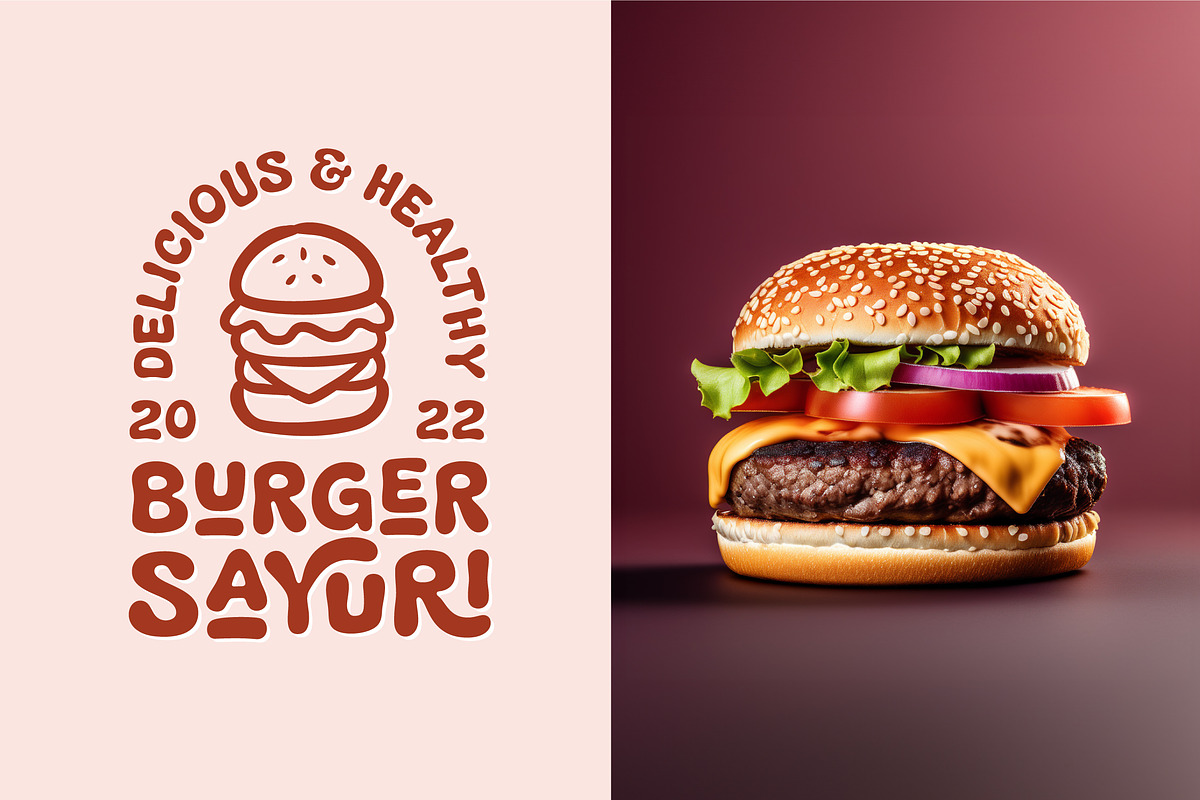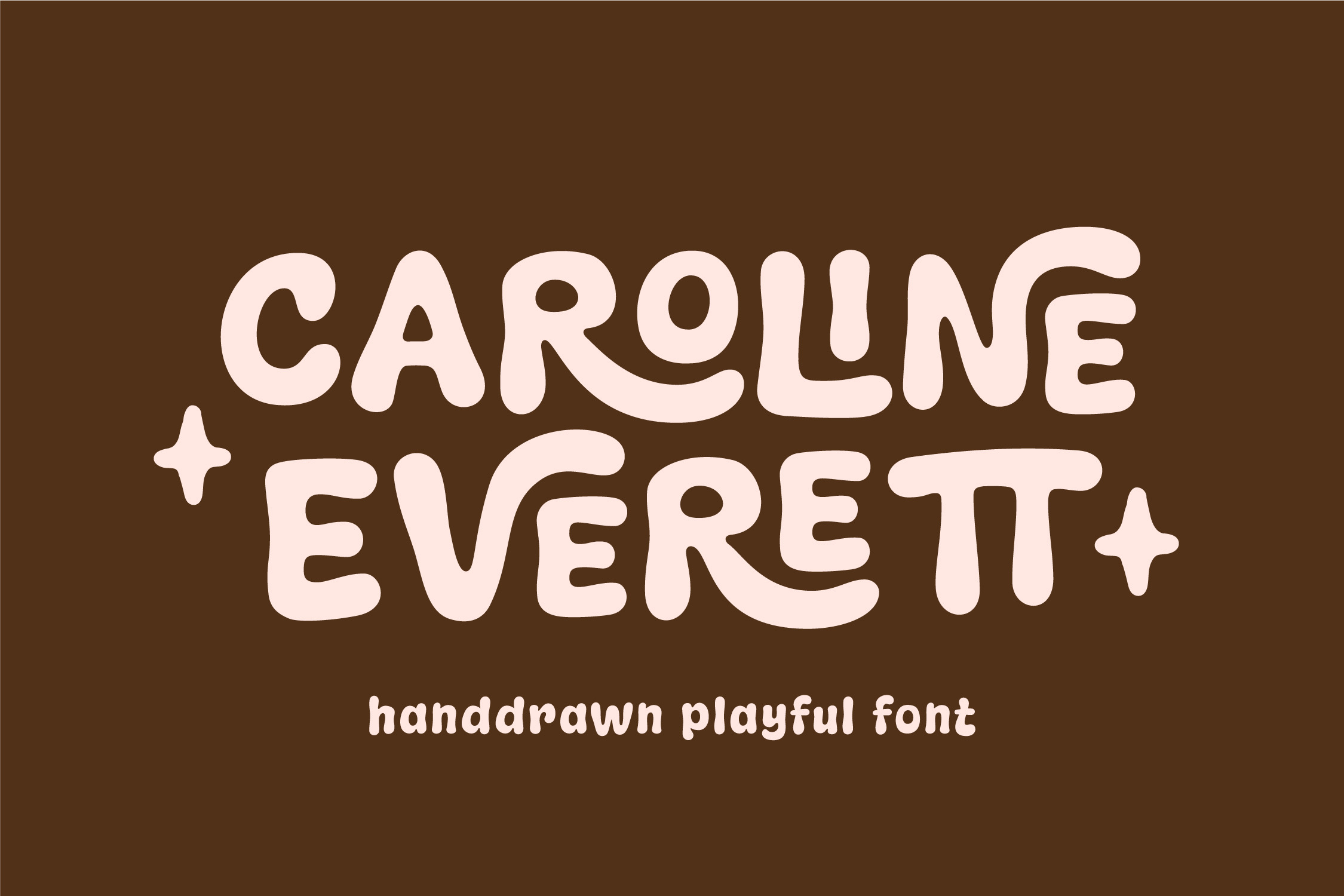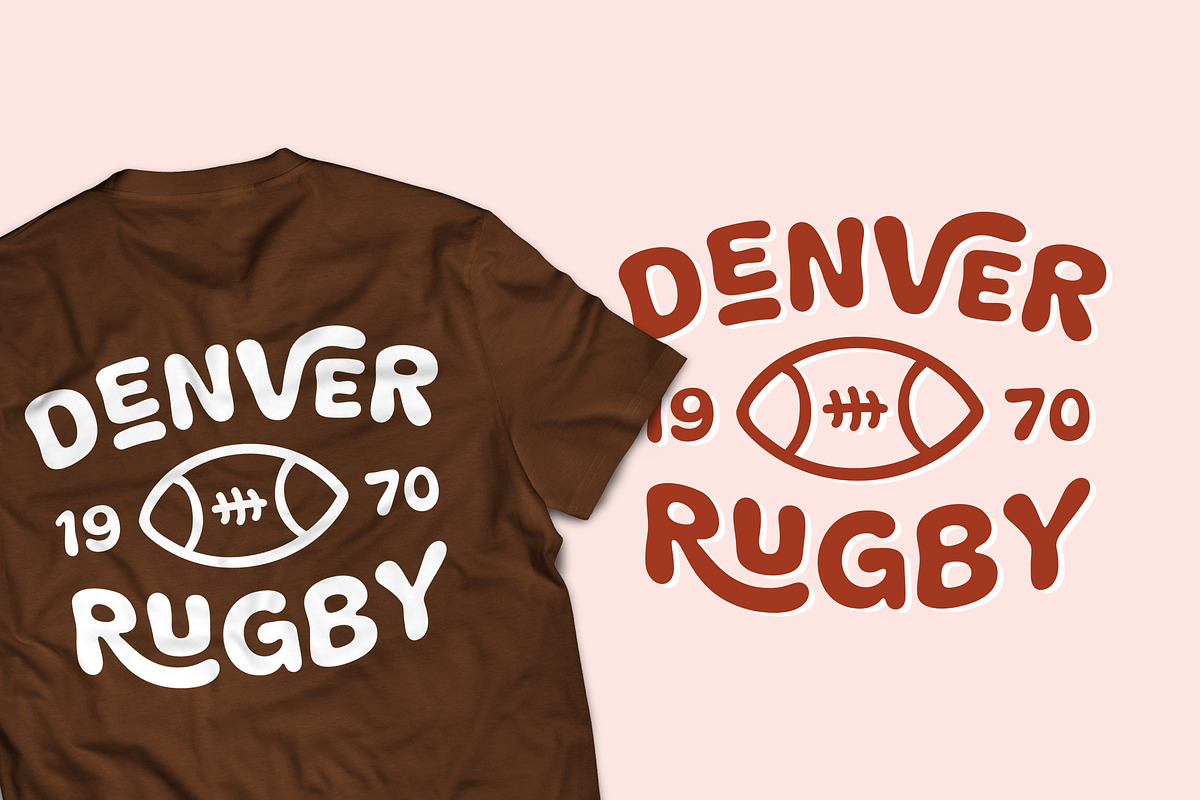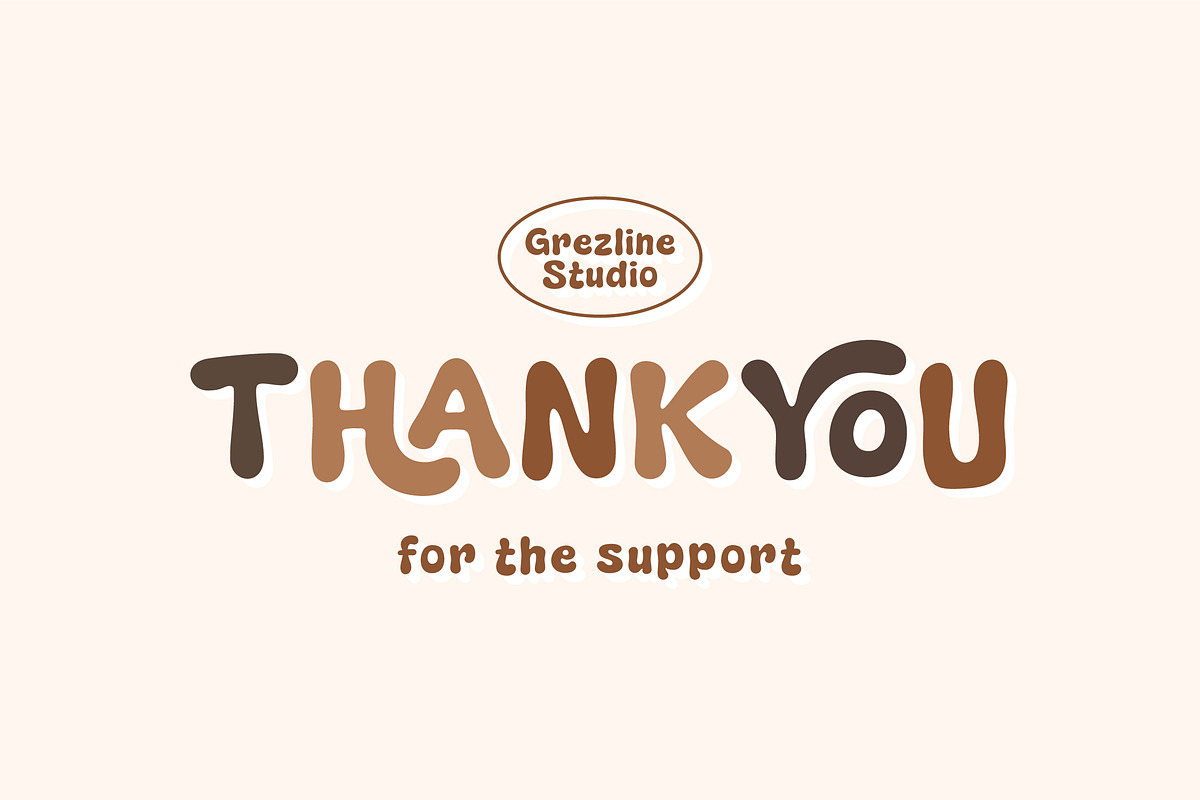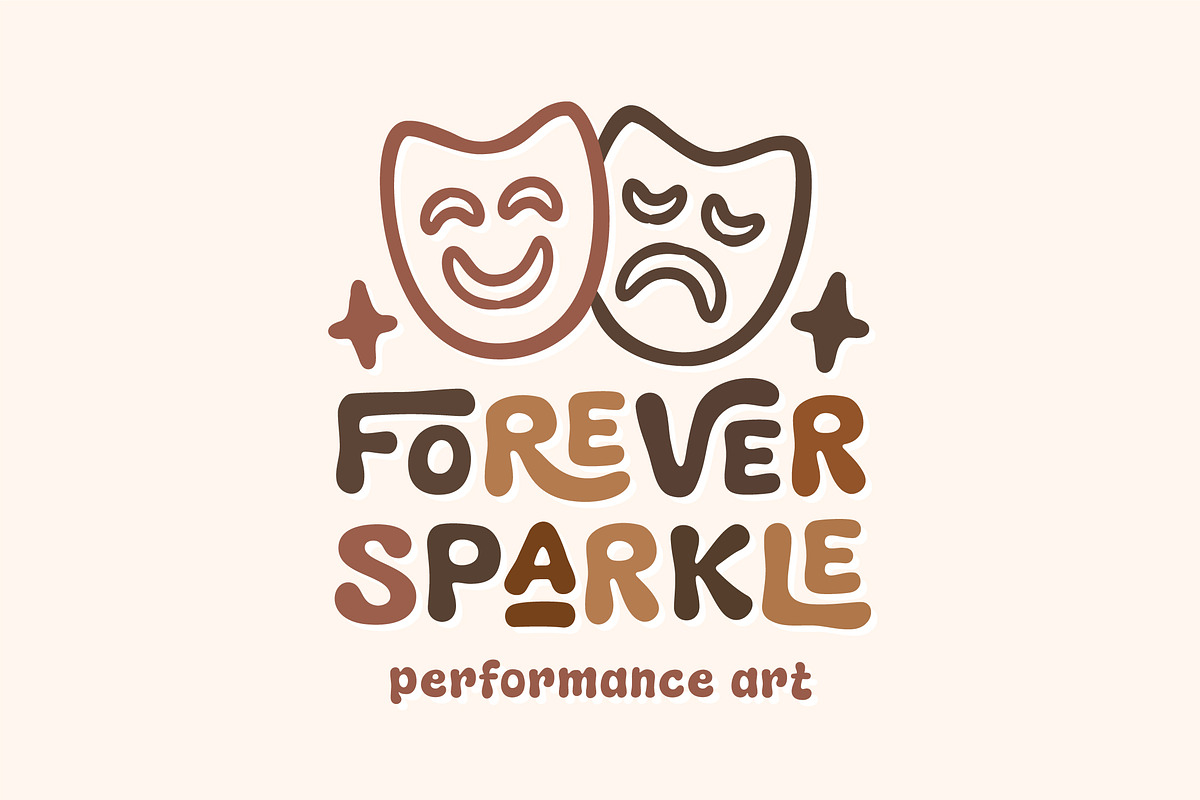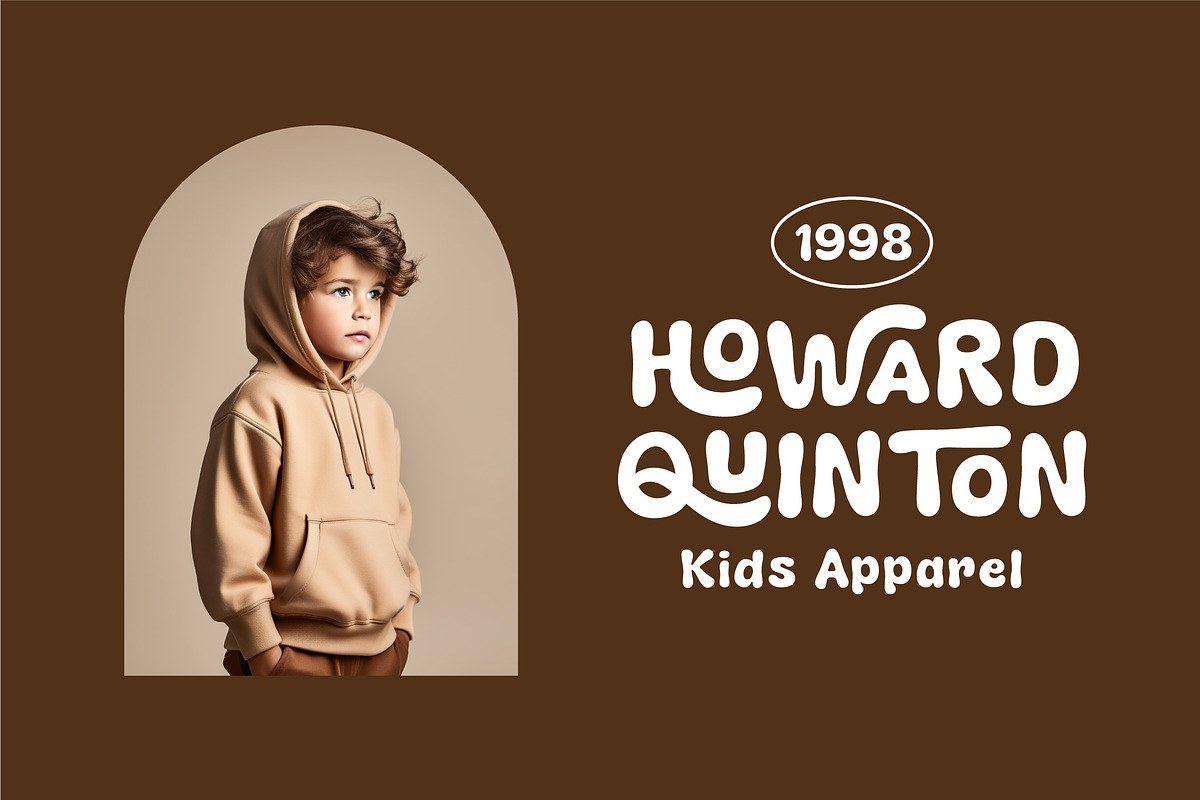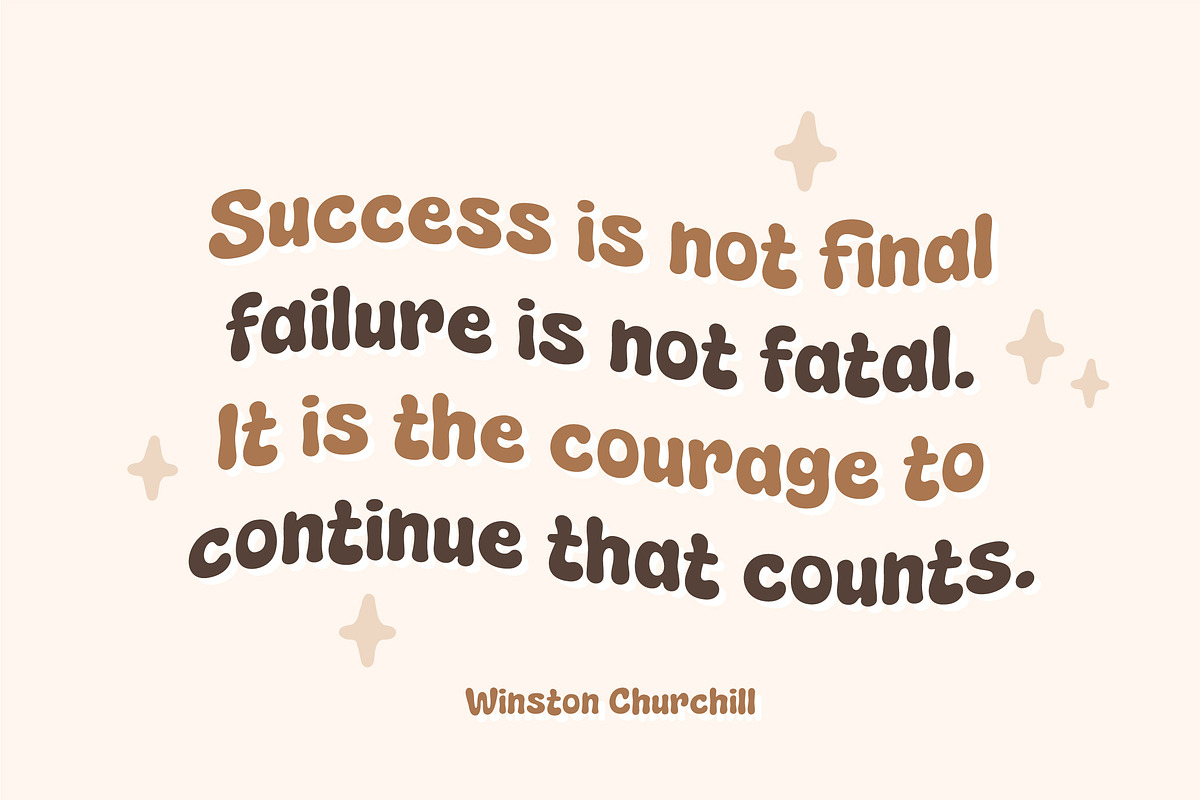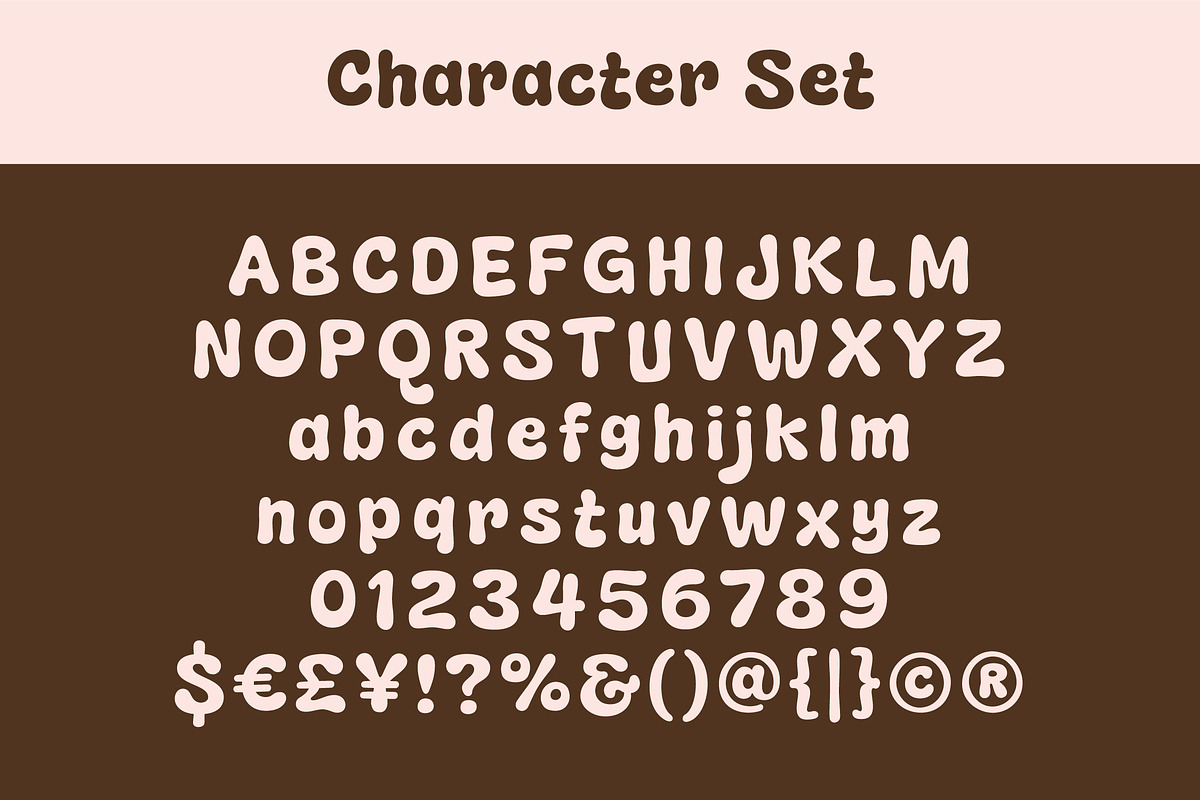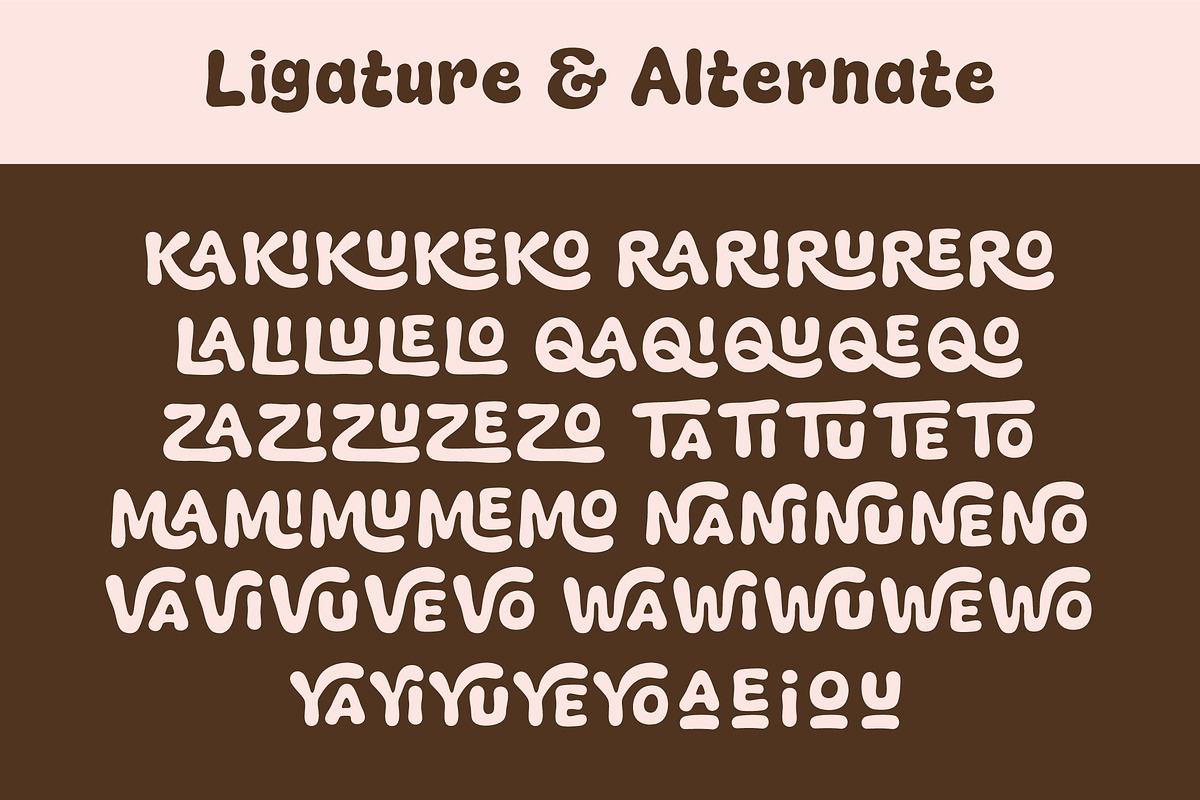
Caroline Everett - Handdrawn Font
Caroline Everett is a fun, cheerful and playful font. This cute display font will add a unique touch to your designs. Caroline Everett font is perfect for a design that requires a playful accent. It is suitable for book covers, posters, packaging, merchandise, logotype, and much more.
- Ligature & Alternate glyphs
- Multilingual Language